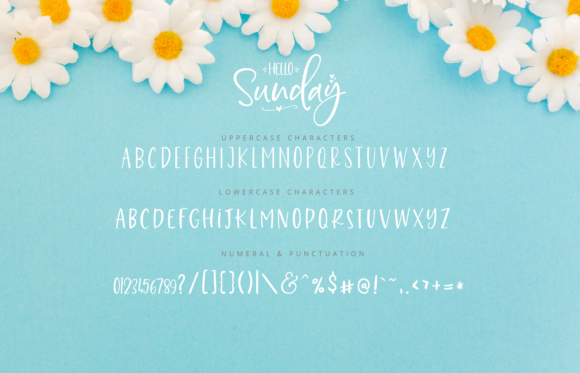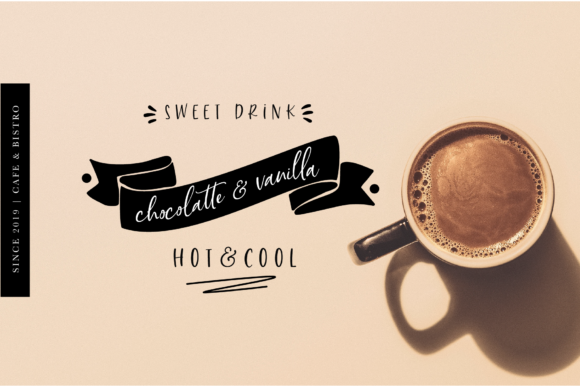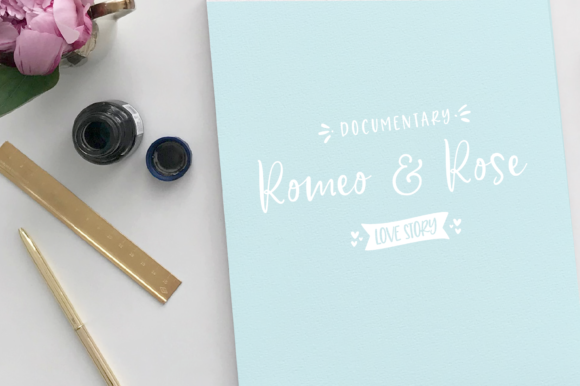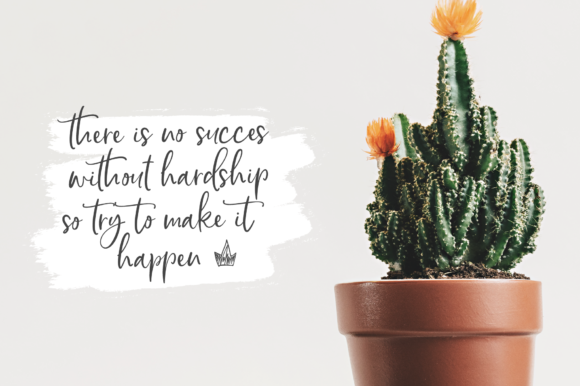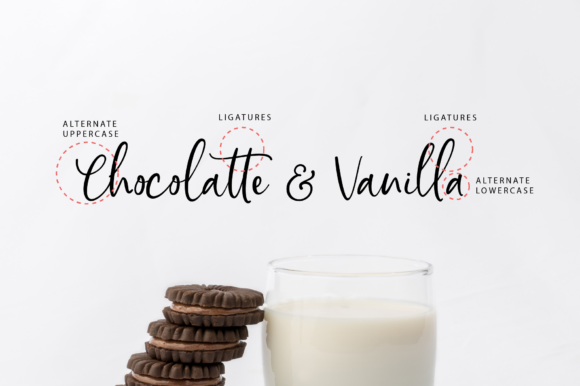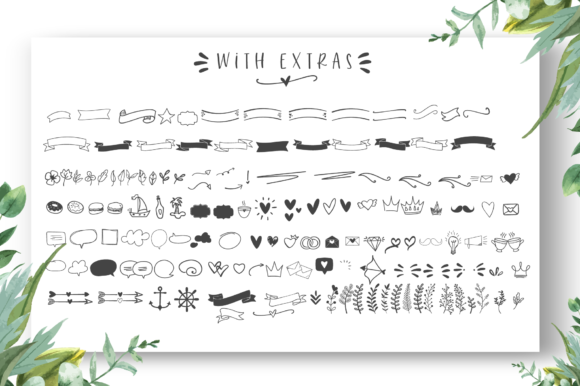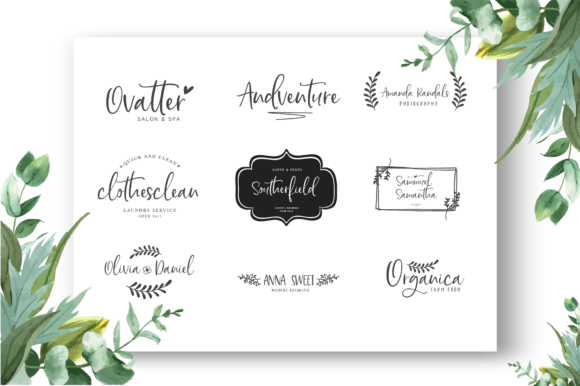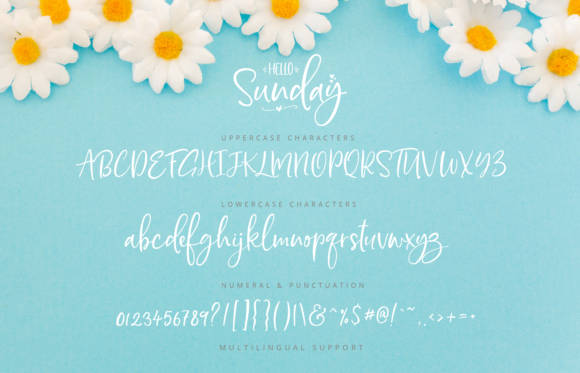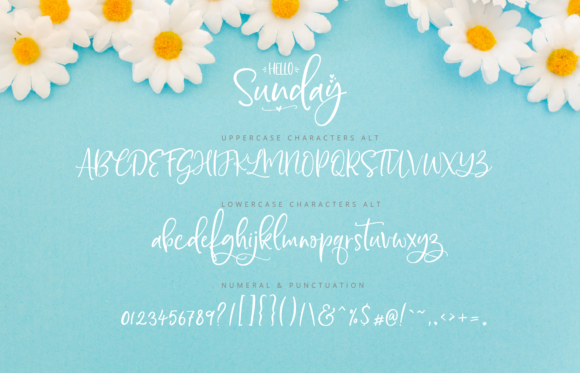
Hello Sunday Font
About Hello Sunday Font
Hello Sunday is a sweet and stunning handwritten font with a whimsical twist. Use it to turn any design project into a true standout!